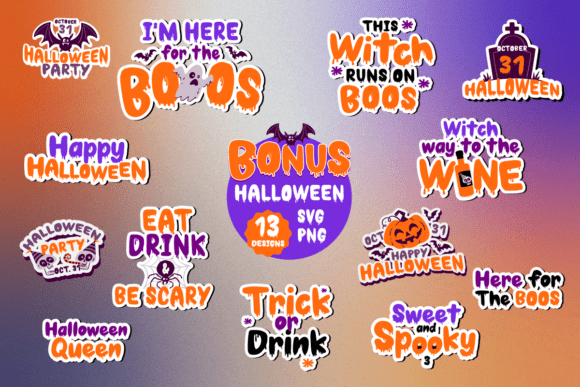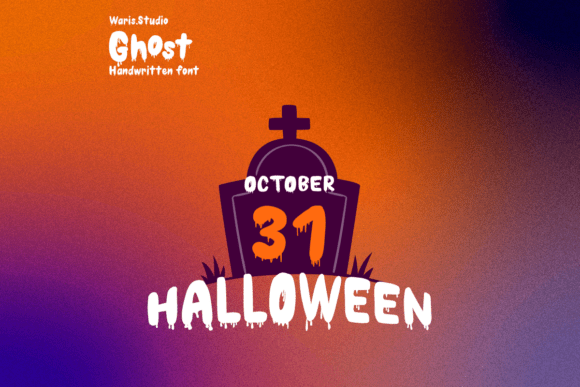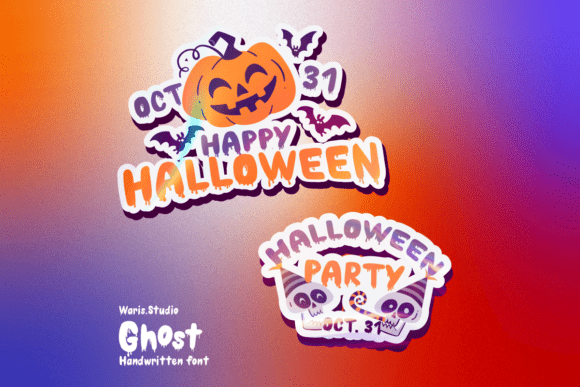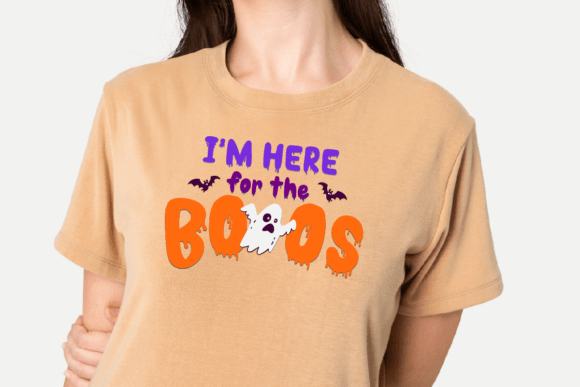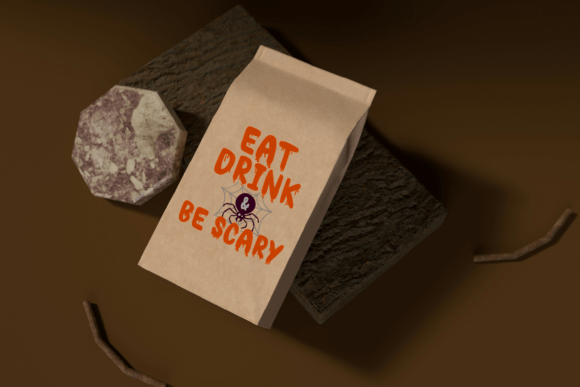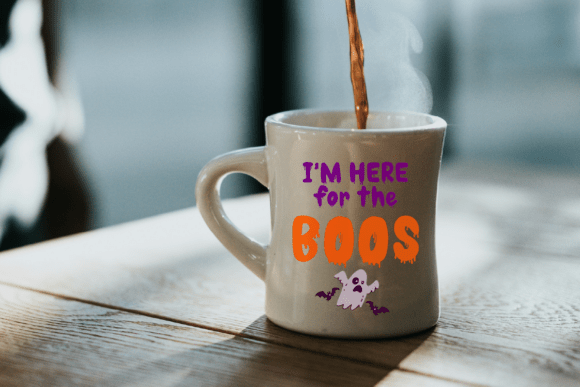
Unleash the Spookiness: Ghost & Halloween Quotes Bundle Font
Get ready to cast a spell of creativity on your designs with the Ghost & Halloween Quotes Bundle Font, a must-have kit for designers and crafters alike. This eerie bundle is packed with a unique handwritten display font and ready-to-use Halloween quotes designs, perfect for conjuring up spooky and spectacular content for the most haunted time of the year.
The Ghost Font: A Spooky, Drippy Display Font
At the heart of this bundle is the Ghost Font, a one-of-a-kind, handwritten display font that captures the essence of Halloween with its spooky, drippy style. Ideal for crafting eye-catching headlines, posters, and Halloween-themed branding, this font is sure to make your designs stand out from the graveyard. The Ghost Font comes in both OTF and TTF formats, ensuring compatibility with a wide range of design software.
Key Features of The Ghost Font:
- Unique Handwritten Style: Gives your designs a personal, crafted look that’s perfect for Halloween-themed projects.
- Spooky, Drippy Effect: Adds a hauntingly beautiful touch to your text, setting it apart from standard fonts.
- Versatile Use: Great for headlines, posters, branding, and any project that needs a spooky flair.
Bonus: 13 Halloween Quotes Designs
But that’s not all. The Ghost & Halloween Quotes Bundle also includes 13 high-quality Halloween quotes designs. These ready-to-use templates feature popular Halloween sayings and are perfect for a variety of applications, from T-shirts and party invitations to decorations and social media posts. The designs are crafted to be easily customizable, allowing you to add your personal touch or adapt them to fit your specific needs.
Why You’ll Love the Halloween Quotes Designs:
- Ready-to-Use: High-quality designs that save you time and effort, ready to be used in your projects.
- Popular Sayings: Features a collection of widely recognized and loved Halloween quotes, ensuring your designs resonate with your audience.
- Customizable: Easily modify the text, colors, and other elements to match your project’s theme or brand identity.
- Multi-Purpose: Suitable for T-shirts, party invitations, decorations, social media posts, and more.
Who Is This Bundle For?
The Ghost & Halloween Quotes Bundle Font is a versatile design kit that caters to a wide audience, including:
- Graphic Designers: Looking for unique fonts and quotes designs to offer to clients or to use in personal projects.
- Crafters: Creating handmade Halloween decorations, cards, or party favors.
- Small Business Owners: Needing Halloween-themed designs for marketing campaigns, product lines, or event promotions.
- DIY Enthusiasts: Passionate about creating their own Halloween decor, invitations, or gifts.
The Ghost & Halloween Quotes Bundle Font is your go-to design solution for all things spooky and spectacular this Halloween season. With its unique Ghost Font and collection of ready-to-use Halloween quotes designs, this bundle offers endless possibilities for creativity. Whether you’re a professional designer or a DIY enthusiast, this kit provides the perfect tools to make your Halloween projects stand out. So, don’t miss out on the chance to elevate your designs with a touch of spookiness. Get your Ghost & Halloween Quotes Bundle Font today and start creating your most hauntingly beautiful projects yet!